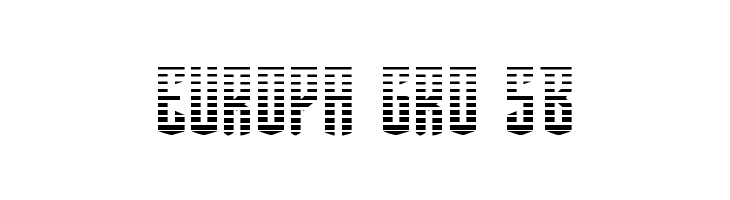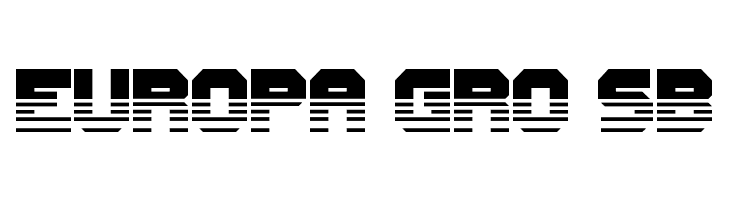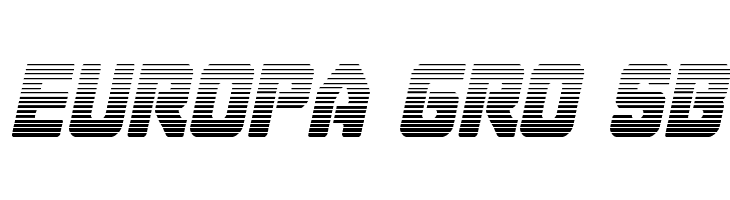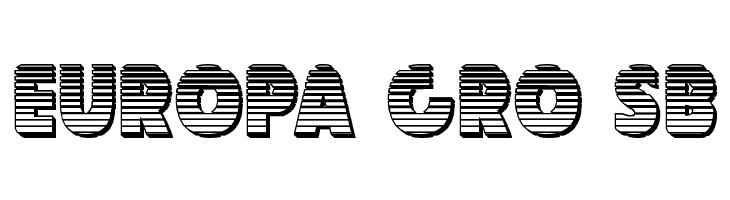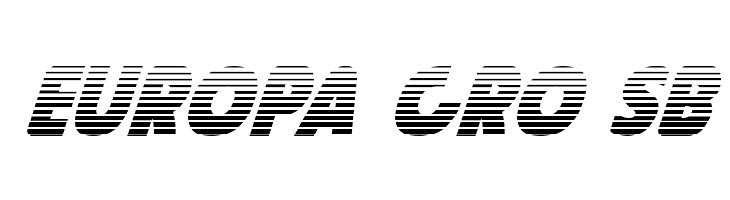
A bold, angular font with a futuristic and geometric design.
A monospaced font with uniform character width, ideal for coding and tabular data.
A grid-patterned, geometric font with a modern, digital aesthetic.
A classic monospaced typeface with a clean, uniform appearance.
A bold, geometric font with blocky, angular letterforms and a futuristic style.
A geometric, monospaced font with a mechanical and futuristic design.
A bold, italic, futuristic font with rounded edges and geometric shapes.
A modern, monospaced typeface with geometric structure and uniform spacing.
A bold, geometric font with an industrial, Soviet-era aesthetic.
A pixelated, retro-style font with a bold, digital appearance.
A bold, futuristic font with sharp angles and a condensed structure.
A futuristic, angular font with sharp edges and geometric shapes.
A futuristic, angular font with a condensed and geometric style.
A bold, futuristic font with geometric, angular shapes and a condensed structure.
A bold, futuristic italic font with sharp angles and geometric shapes.
A futuristic, gradient, italic font with a dynamic and sleek design.
A bold, futuristic font with angular, italicized characters.
A futuristic, gradient-lined font with a bold, geometric style.
A bold, futuristic font with geometric shapes and wide characters.
A futuristic, geometric font with bold, angular lines and a tech-inspired aesthetic.
A futuristic and geometric font with bold, angular characters.
A futuristic, geometric font with bold, angular lines and a modern aesthetic.
A bold, futuristic font with a slanted, segmented design.